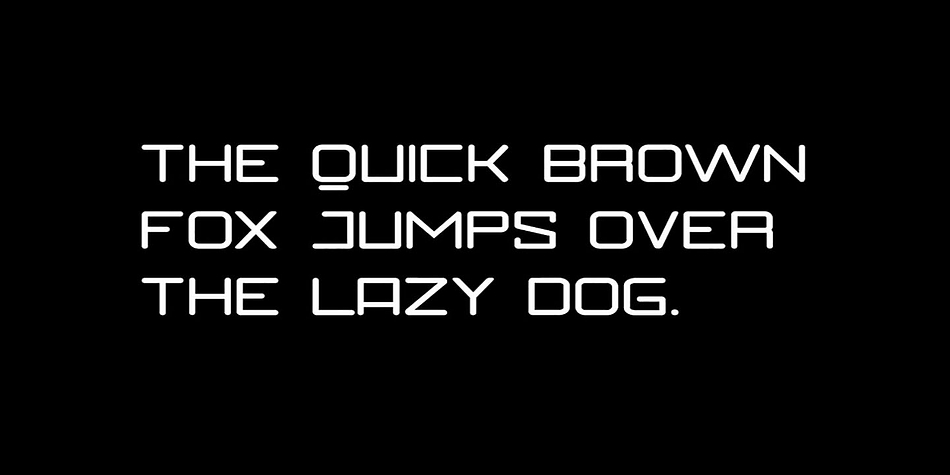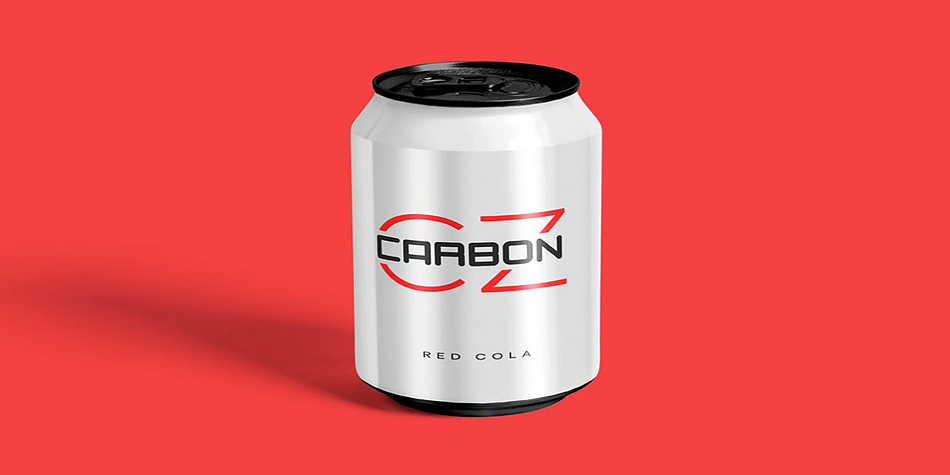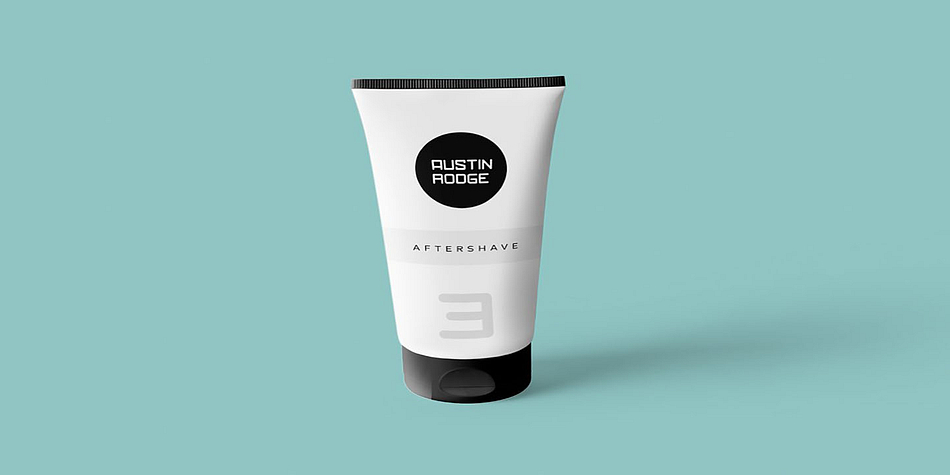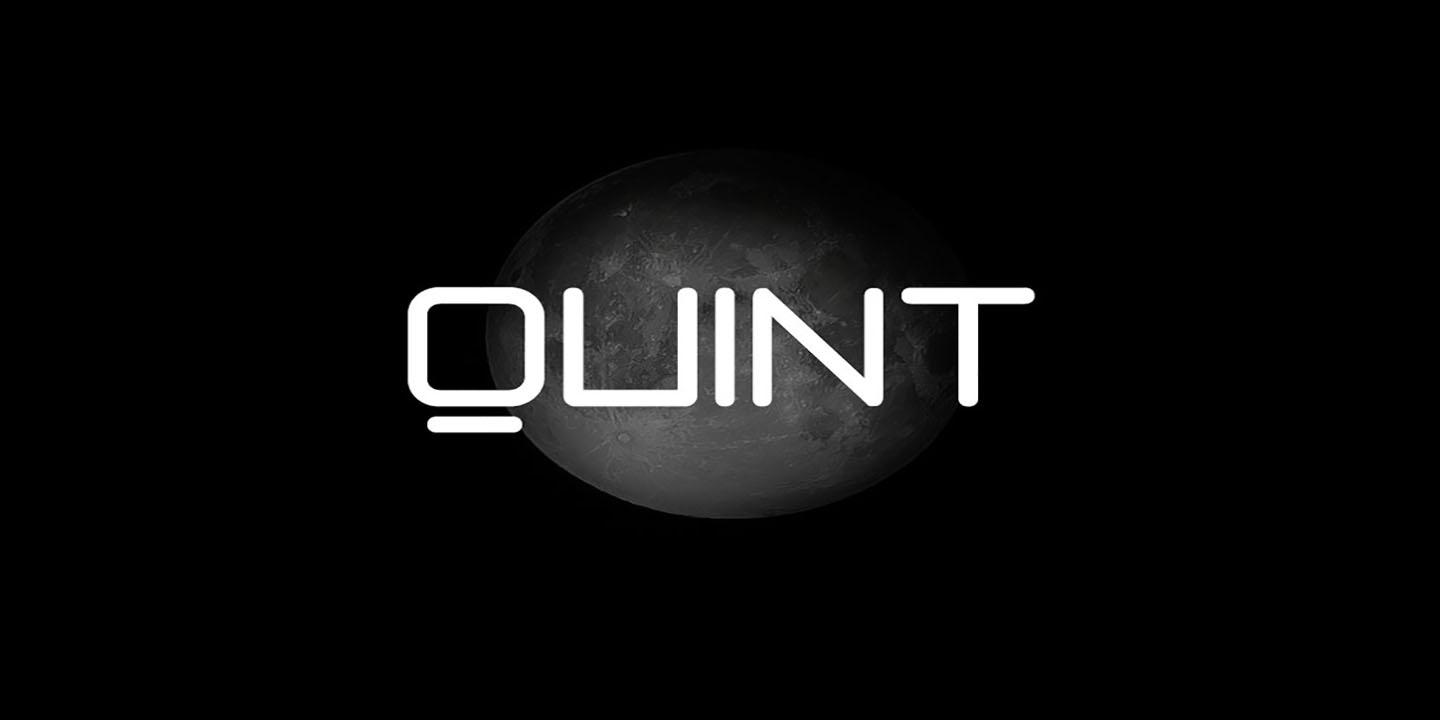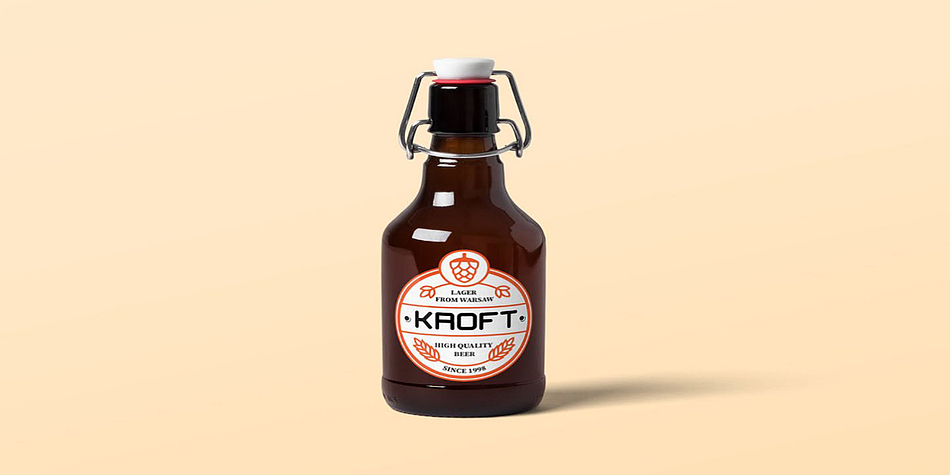
QUINT
QUINT is a display sans font family. This typeface has four styles and was published by Fontastica.
QUINT is a unique typeface inspired from Techno & New Age design themes, perfectly suited for logotypes, branding, marketing, headlines, big text, & display usage. This all-caps typeface is best for creating great logos, promotional content and marketing graphics that lift the creative aspects of the design. Please see the examples shown above to get an idea about the capability of this typeface.